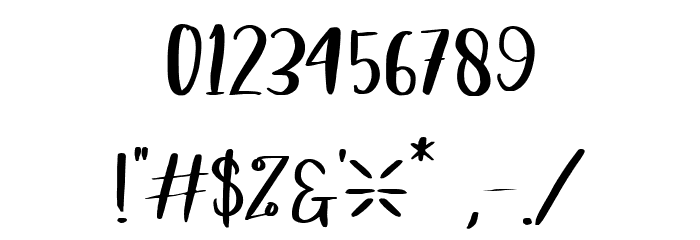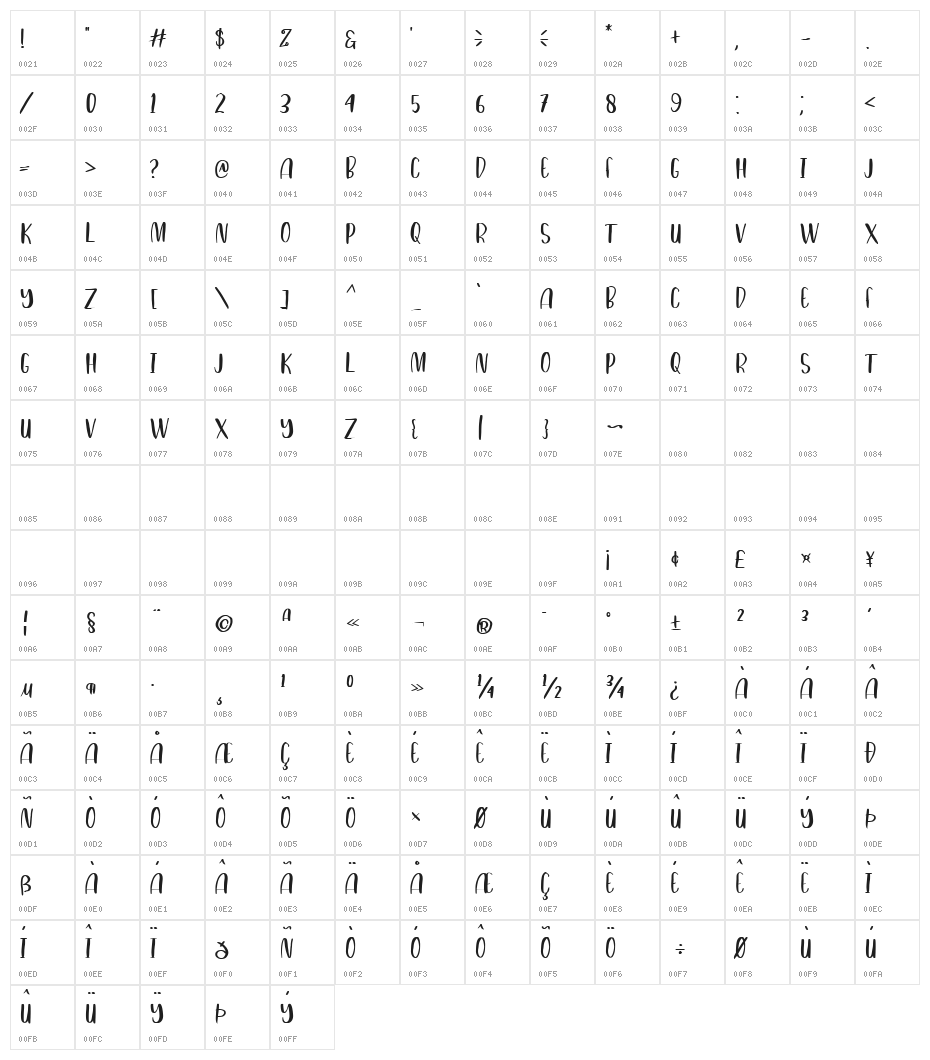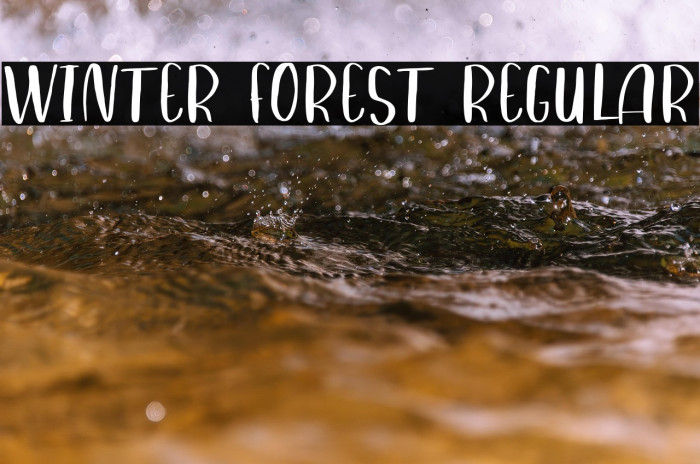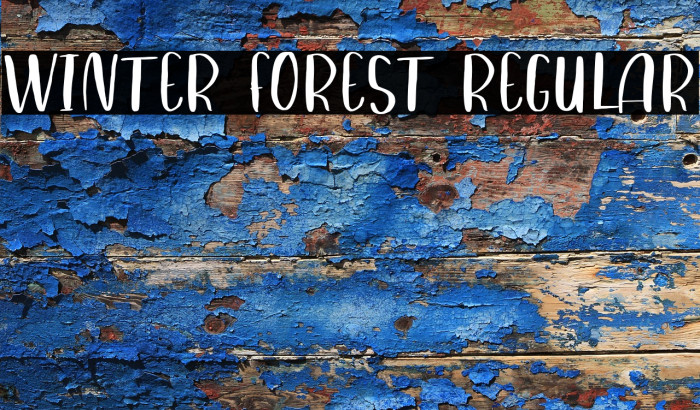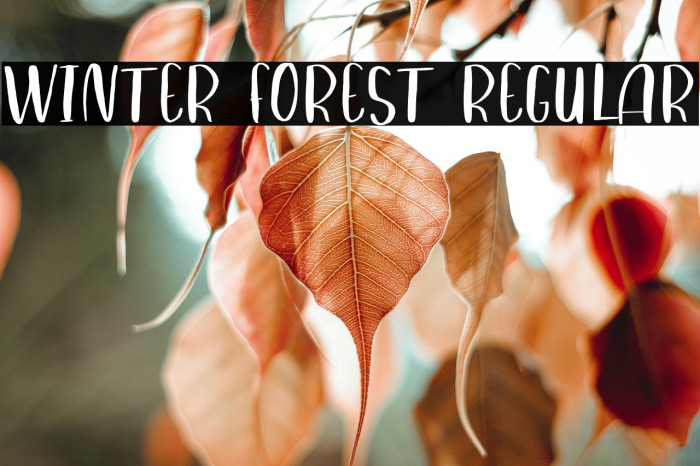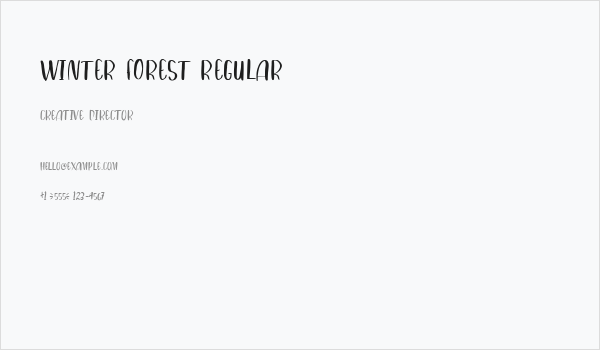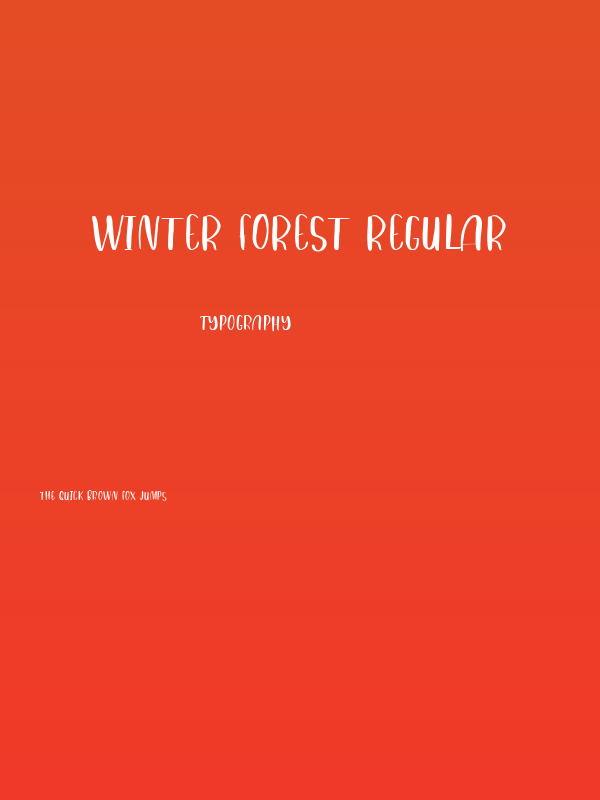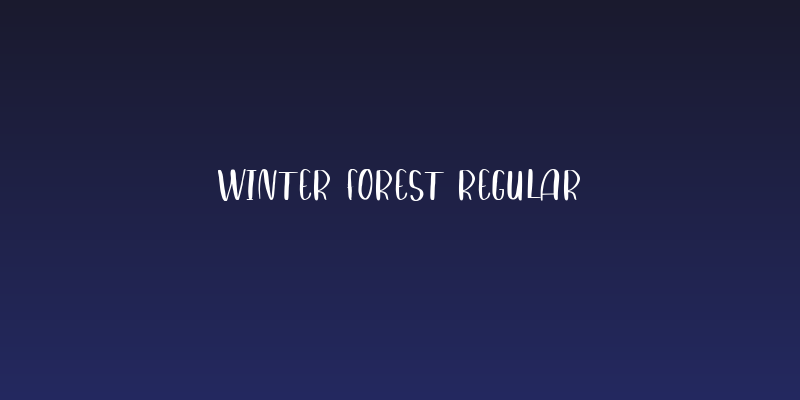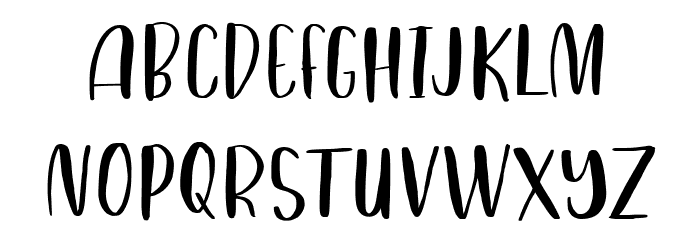
Winter Forest Regular Font
Winter Forest Regular Description
This font features a playful and dynamic style with a handwritten feel. The characters are slightly slanted, giving a sense of movement and fluidity. The strokes are bold and rounded, with a consistent thickness that adds to its legibility. The uppercase letters are tall and narrow, while the lowercase letters maintain a similar width, creating a harmonious balance. The numbers and special characters follow the same design principles, ensuring uniformity across the font. This font exudes a casual yet stylish vibe, making it suitable for various creative applications.